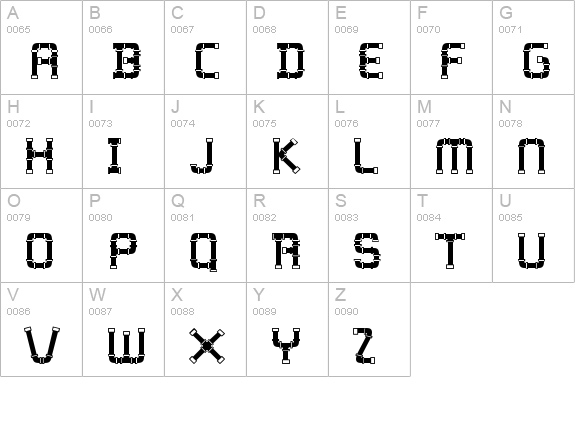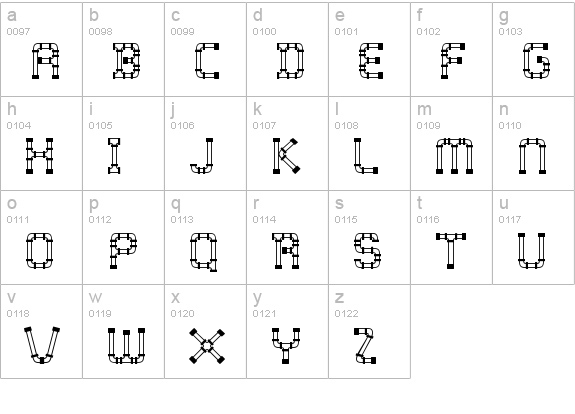
WaterWorksCaps Bold Font Details
WaterWorksCaps Bold is a strong, high-contrast variant in the WaterWorksCaps typeface family \xE2\x80\x94 well suited to headlines, attention-grabbing titles, and strong calls-to-action.
WaterWorksCaps Bold font is a stunning and eye-catching typeface that will make your designs stand out from the crowd. With its bold and dynamic letterforms, this font exudes confidence and power. Perfect for headlines, logos, posters, and any other project that requires a strong and impactful visual presence. What makes WaterWorksCaps Bold font even more appealing is that it is available for free! Yes, you read that right. This incredible font can be downloaded for free at FontsMarket.com. No need to spend a fortune on expensive fonts when you can get this high-quality typeface without spending a dime. With WaterWorksCaps Bold font, you can unleash your creativity without any restrictions. Whether you're designing for personal or commercial use, this versatile font has got you covered. Its clean and crisp lines make it easily legible, ensuring that your message gets across effectively. No matter the size or scale of your project, WaterWorksCaps Bold font will make a bold statement. Its distinctive and memorable letterforms will captivate your audience and leave a lasting impression. From branding to advertisements, this font will elevate your designs to new heights. So why wait? Head over to FontsMarket.com and download WaterWorksCaps Bold font for free today. Don't miss out on this incredible opportunity to enhance your designs with a font that combines boldness, power, and elegance. Get ready to make a statement with WaterWorksCaps Bold font.